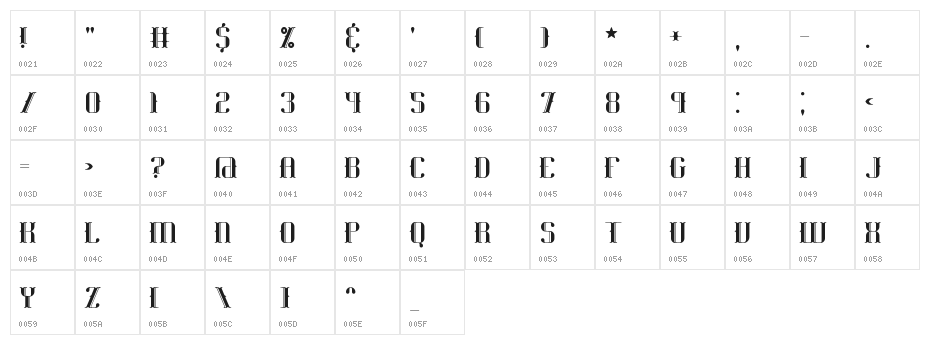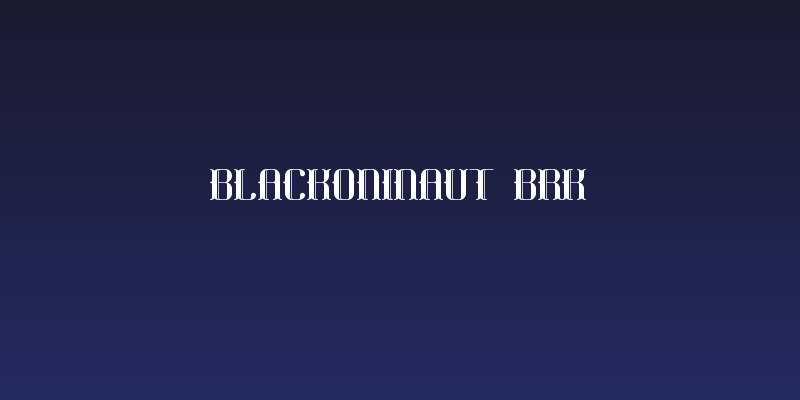
Blackoninaut BRK Font
Blackoninaut BRK Description
This font presents a striking and bold design, characterized by its unique blend of modern and vintage elements. The uppercase letters exhibit a tall, narrow structure with sharp, angular serifs that give a gothic feel. The lowercase letters maintain a consistent style, with a slightly more rounded appearance that complements the uppercase. Numbers are designed with the same boldness and angularity, ensuring uniformity across the font. Special characters are creatively styled, adding a decorative touch that enhances the overall aesthetic. The font's high contrast between thick and thin strokes adds to its dramatic and eye-catching appearance.
| Proposed Projects | Ideal for use in branding, poster design, and any project requiring a dramatic and bold typeface. |